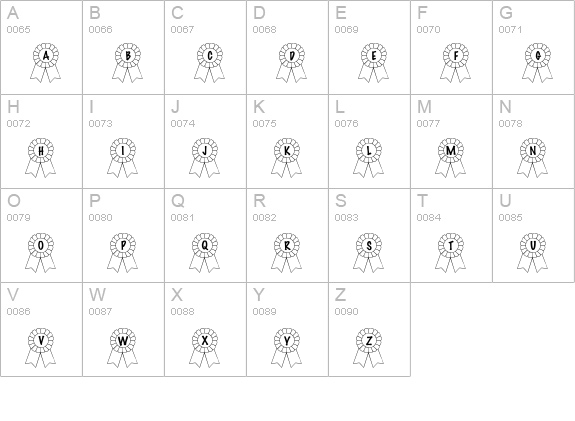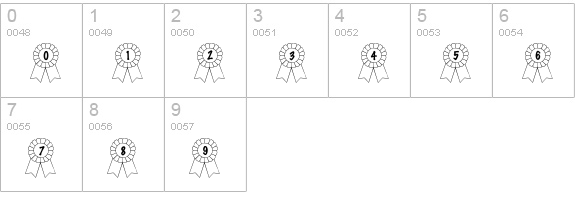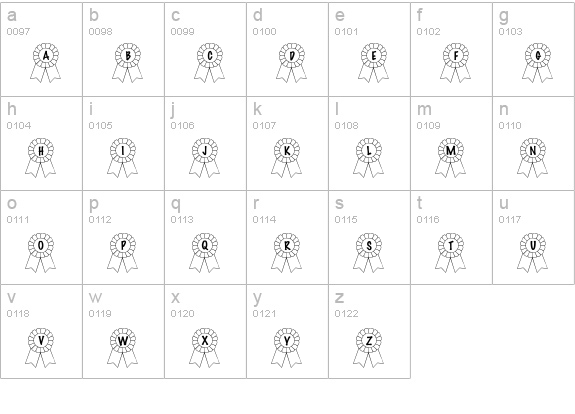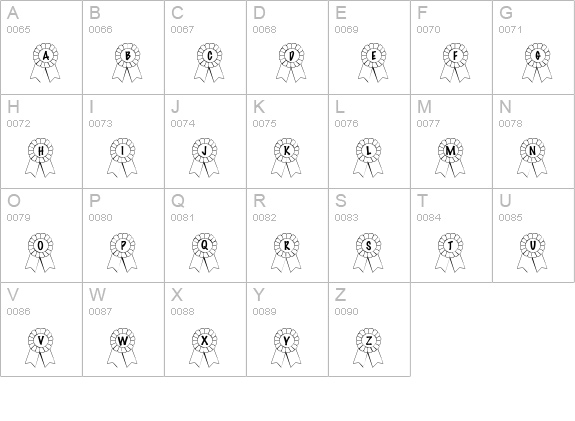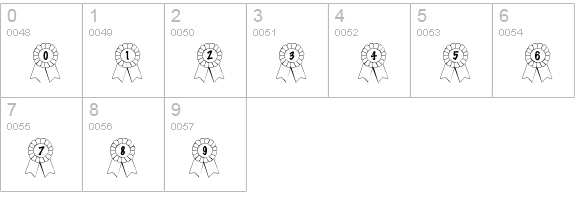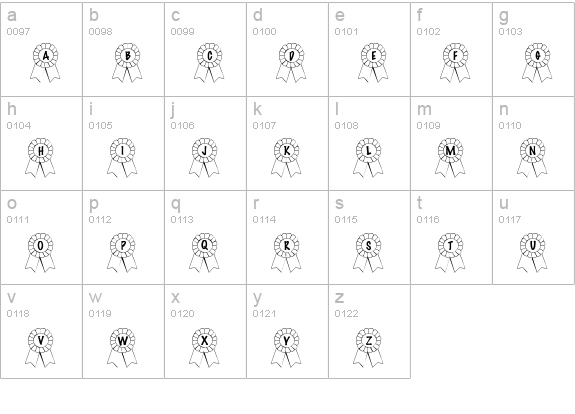
Introducing the mesmerizing 101! Awards Won font, a stunning typeface that exudes elegance and sophistication. This exquisite font boasts a collection of prestigious awards won for its impeccable design and versatility. With its sleek lines and stylish curves, this font is perfect for adding a touch of glamour to any project. What sets the 101! Awards Won font apart is not just its accolades, but also its incredible versatility. Whether you're working on a high-end branding project, a luxury magazine layout, or a sophisticated invitation design, this font will elevate your work to new heights. And the best part? The 101! Awards Won font is completely free to download at FontsMarket.com. So go ahead and add this award-winning font to your collection today and watch your designs shine like never before.